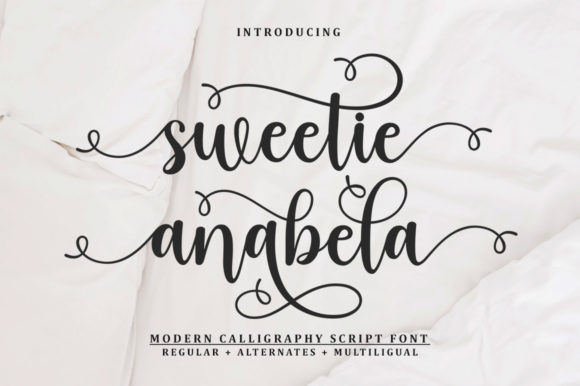
Dive into the world of Sweetie Anabela, an enchanting script font that will transform your creative visions into captivating realities. This exquisite font is meticulously crafted by Reyna Studio, renowned for their dedication to producing fonts that ignite imagination and leave a lasting impression.
Sweetie Anabela's delicate and distinctive style exudes a touch of romance and grace, making it the perfect companion for your heartfelt projects. Its elegant curves and whimsical ligatures dance harmoniously, adding a unique charm to every word you create.
Unleash your inner artist and explore the endless possibilities that await with Sweetie Anabela. Whether you're crafting heartfelt invitations, designing captivating logos, or creating personalized artwork, this font will infuse your creations with a touch of undeniable charm.
Step into a world of boundless creativity where your ideas take center stage. Experience the joy of seamless typing as Sweetie Anabela's PUA encoding grants you effortless access to a treasure trove of glyphs and ligatures. Unleash your imagination and let your words come alive with unparalleled beauty and grace.
Sweetie Anabela is more than just a font; it's an invitation to embark on an artistic journey where your creativity knows no bounds. Its versatility extends beyond traditional applications, making it a perfect choice for branding, packaging, and even script tattoos.
Imagine the allure of your brand name gracefully rendered in Sweetie Anabela's delicate strokes, captivating the attention of your audience and leaving an indelible mark. Allow your products to shine with packaging adorned in Sweetie Anabela's enchanting script, creating an irresistible appeal that sets them apart from the mundane.
For those seeking a touch of individuality and artistic flair, Sweetie Anabela offers a world of possibilities. Its intricate details and captivating flow make it an ideal choice for script tattoos that tell a unique story. Let your skin become a canvas for personal expression and showcase your individuality with a tattoo inked in Sweetie Anabela's timeless elegance.
Sweetie Anabela is not just a font; it's an experience. A gateway to a world where creativity blooms and imagination reigns supreme. Its versatility, charm, and undeniable beauty make it a must-have for any creative toolbox. Embrace the magic of Sweetie Anabela and embark on a creative journey that will leave you spellbound.